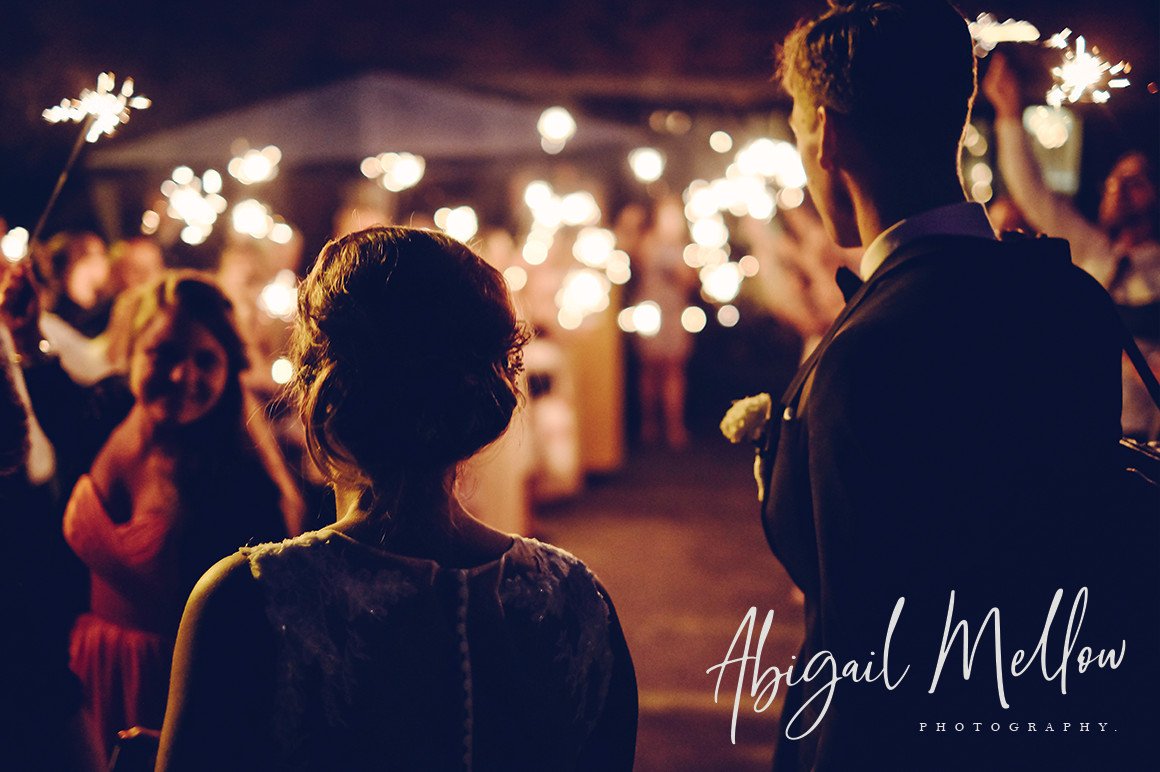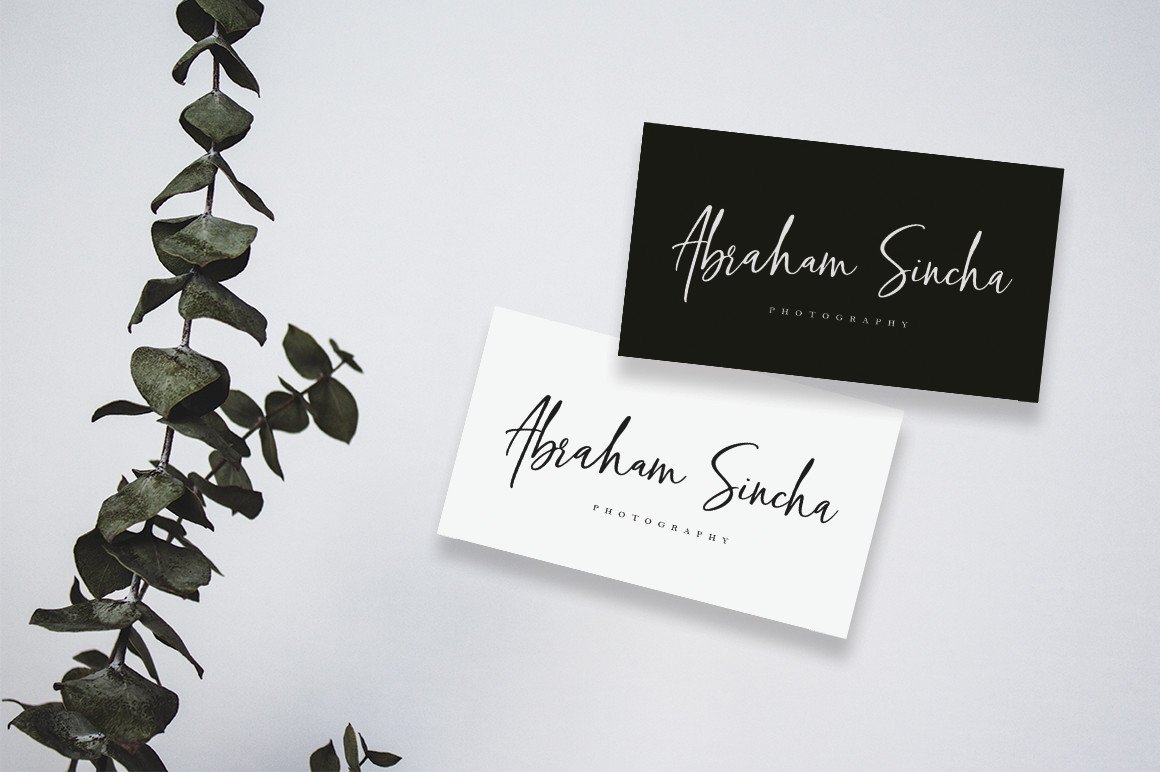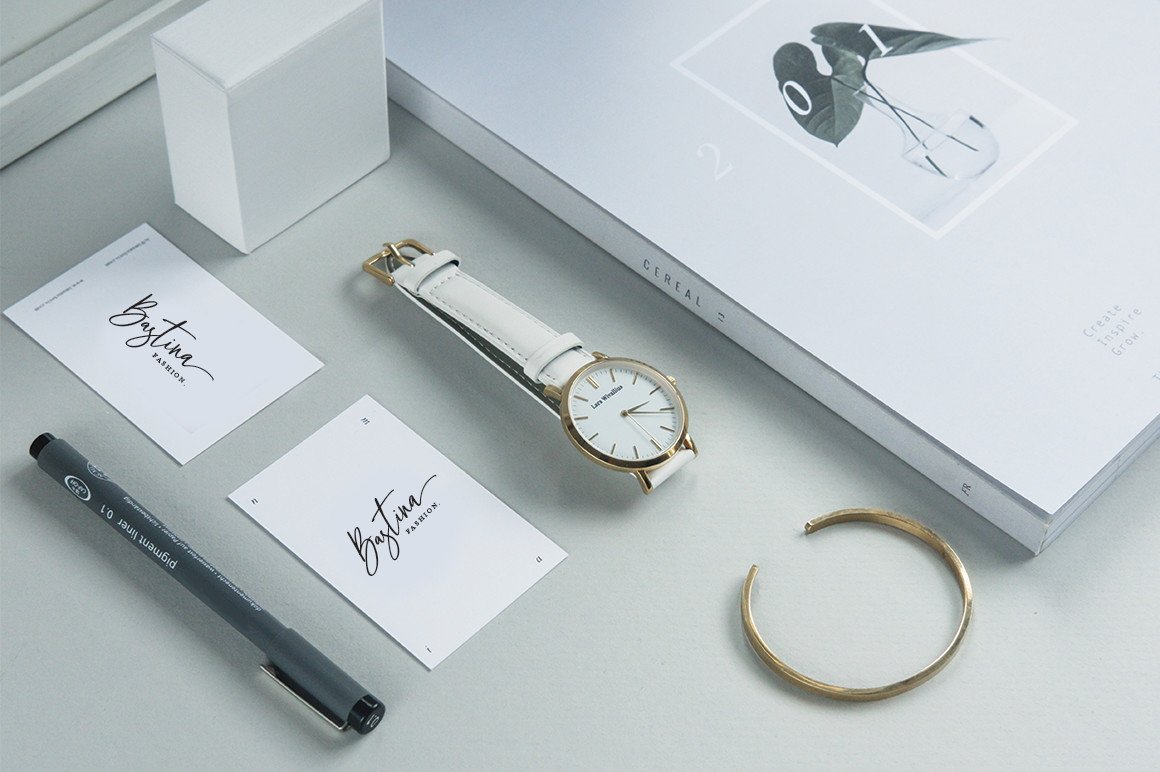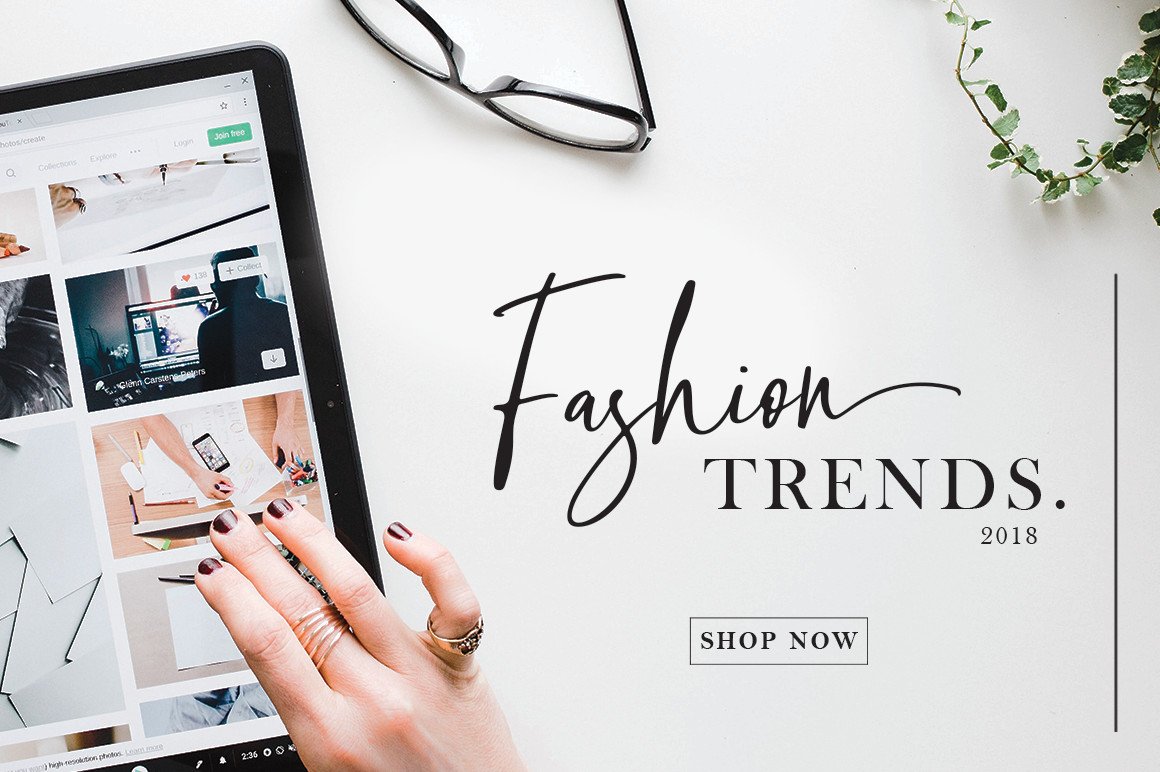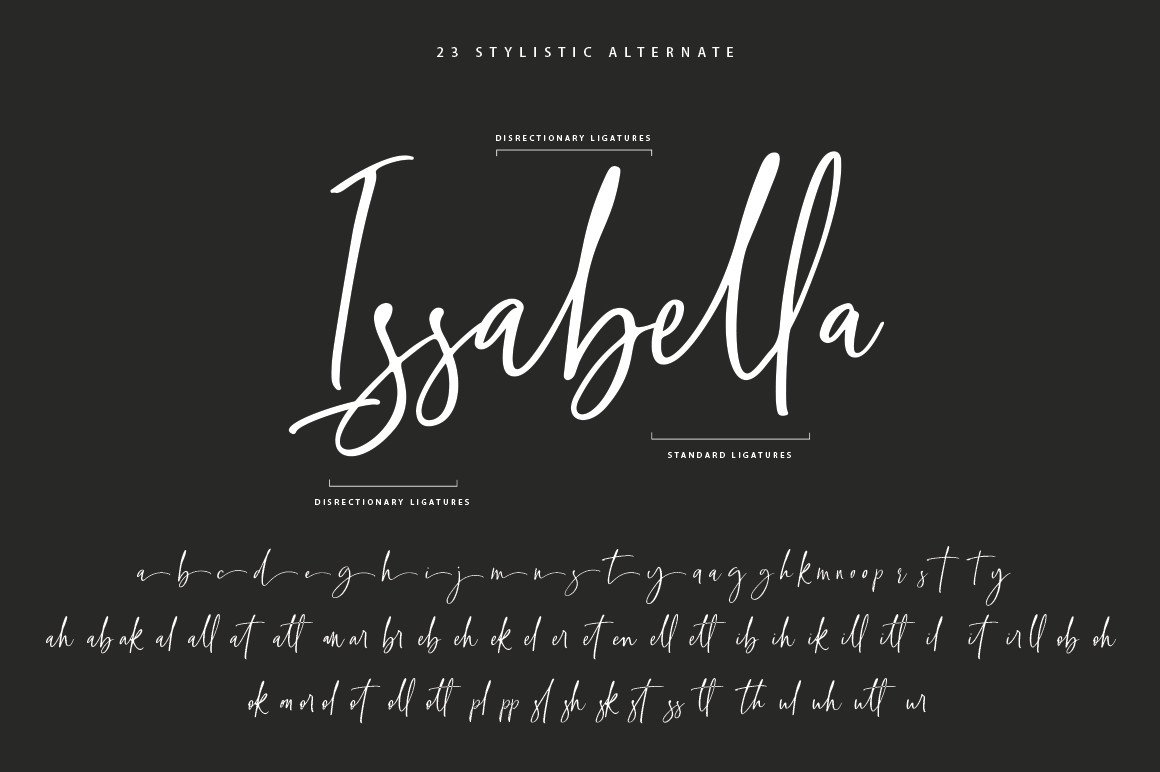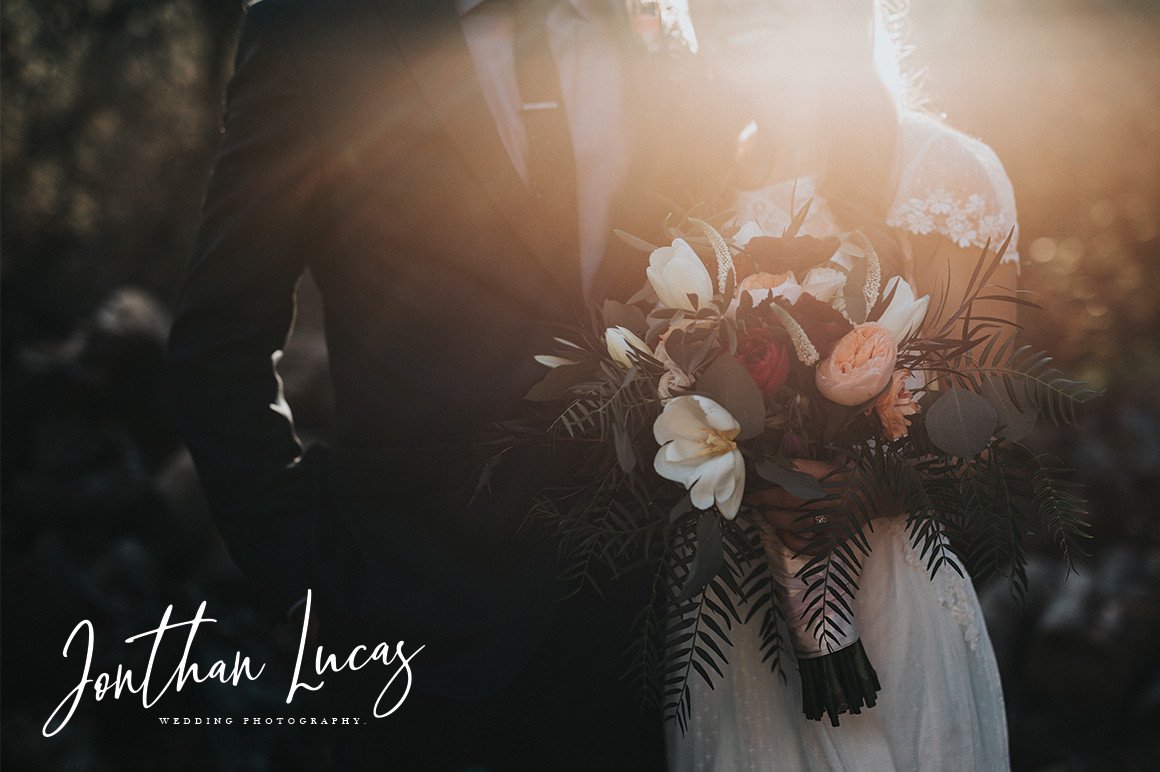
Mellyana Script Free Demo
Mellyana Script Free Demo is free-flowing, feminine, fashionable and friendly. Mellyana is perfect for fashion, e-commerce brands, trend blogs, etc.